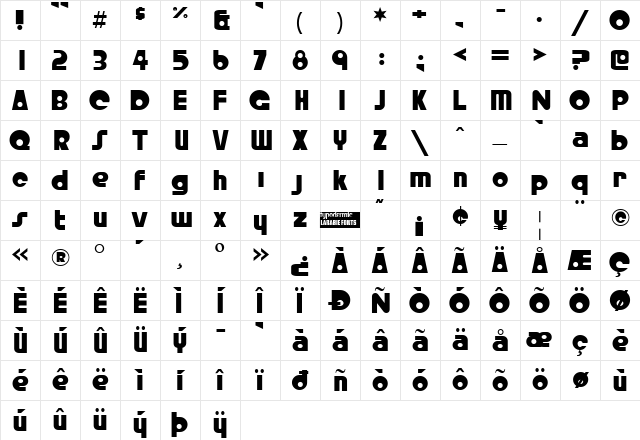
Crystal Radio Kit Regular
Design Context for Crystal Radio Kit
Crystal Radio Kit is a composed and adaptable typeface that performs quietly and consistently across a wide range of design contexts.
Pro Tip: Use Crystal Radio Kit in both headline and body roles to test its range before committing to a single application.